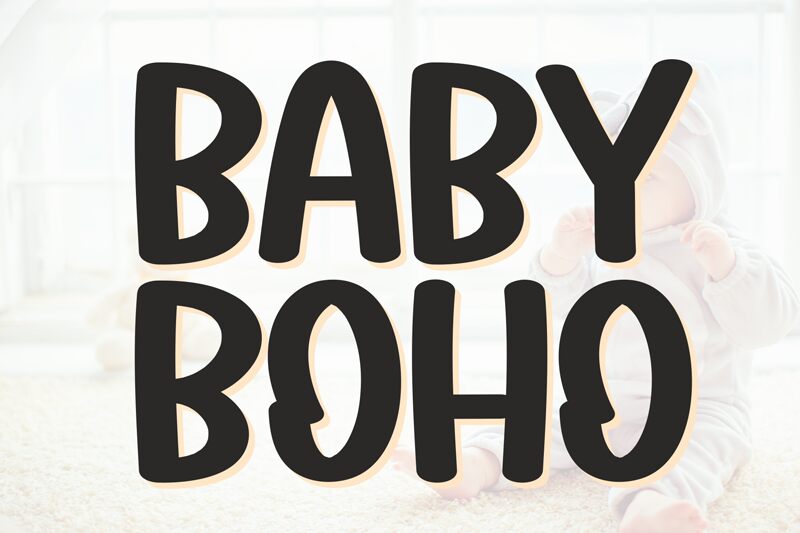
Baby Boho
Baby Boho font by Scratchones embodies a playful and casual vibe with its rounded structure and decorative elements. This free brush font captures a retro aesthetic, offering a charming and nostalgic appeal without overpowering the viewer. Its simplicity and unique design make it highly appealing to all kinds of audiences.
Use the amazing features of this typeface in designing magazines, newspapers, packaging, labels, signages, websites, and mobile applications. This display font fits book covers of children’s books perfectly as well as branding designs like logos and slogans.